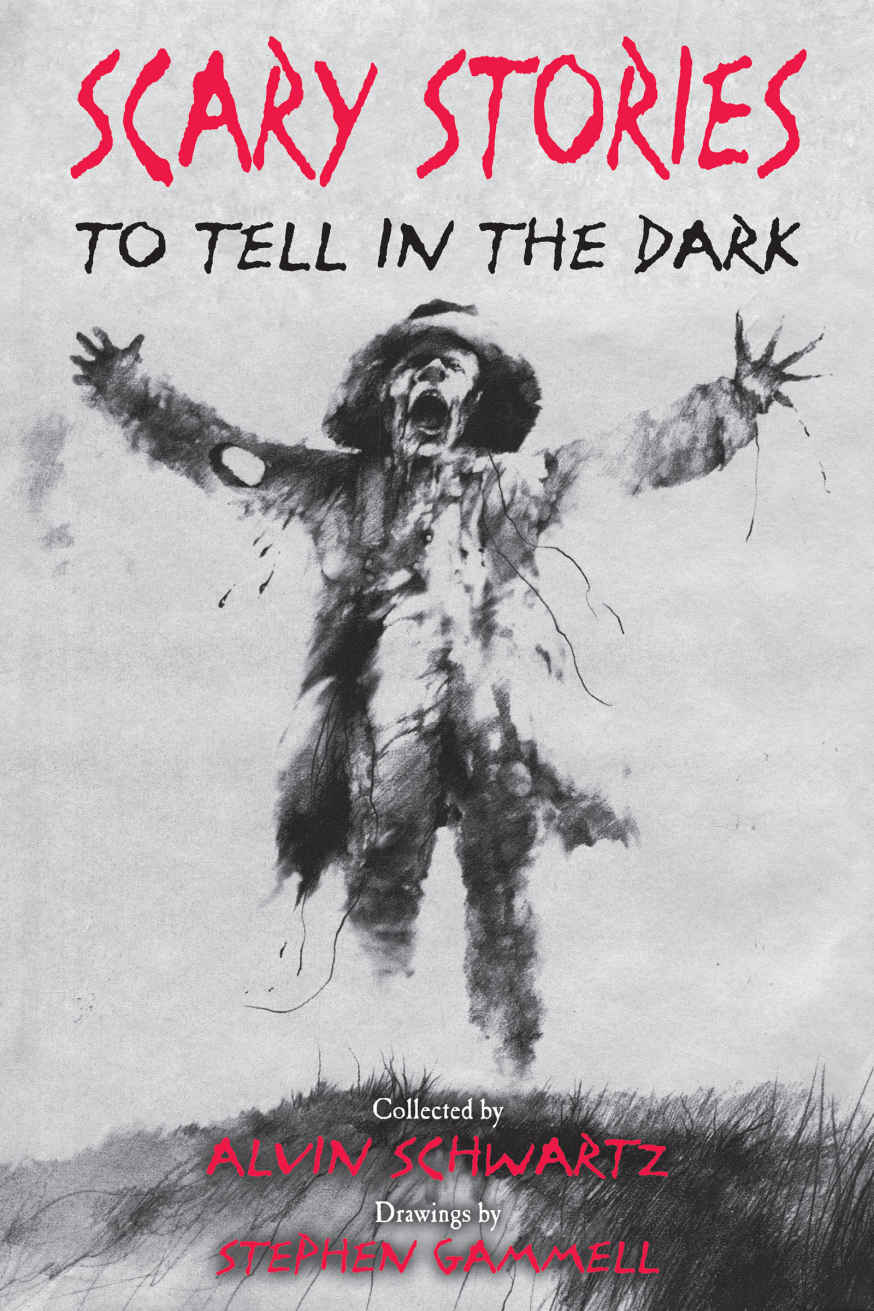
Scary Stories to Tell in the Dark Font
BookScary Stories to Tell in the Dark is a series of three collections of short horror stories for children, written by Alvin Schwartz and originally illustrated by Stephen Gammell. A film adaptation was released on August 9, 2019.
The book title features manually condensed capitals from Lettres Eclatees, a rough script designed by Julie Staniland in 1988. The small serif at the bottom is Caslon Antique, which was also used for the book title on the alternate book cover. The 2019 film seems to use Janson Text 75 for the title on the poster and Requiem for the title in the trailer.